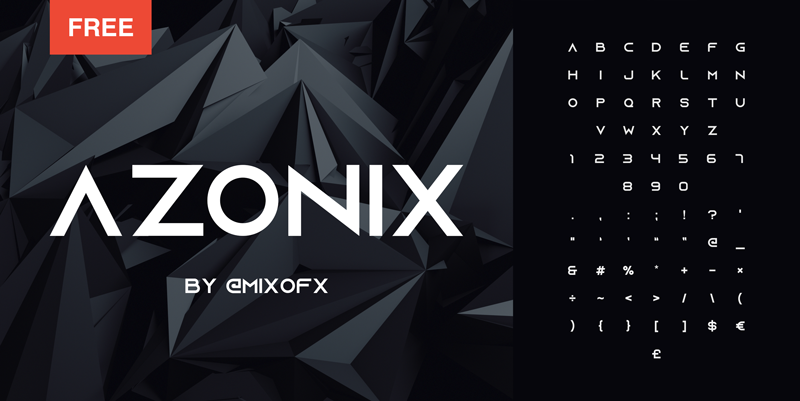
Font name: | Azonix |
Author: | Mixo FX |
Note by Mixo FX | |
Azonix is a modern sans-serif typeface. This typeface consists of bold geometric upper case letters, numbers and punctuation (symbols). I will be making more fonts in the future so feel free to follow me on twitter @MixoFX so you don't miss out. Enjoy the free font! DO NOT REDISTRIBUTE This font is free for both personal & commercial use. |